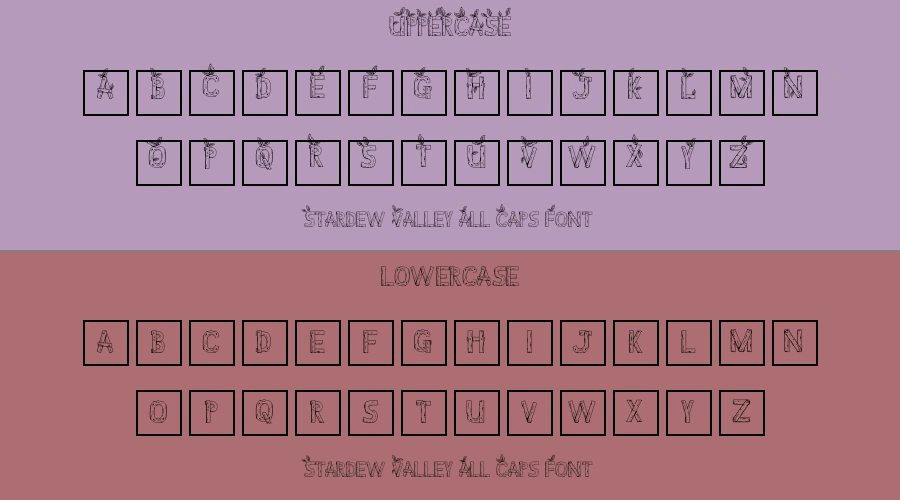
About Stardew Valley All Caps Font
When typographic excellence matters most, Stardew Valley All Caps Font delivers through its thoughtful blend of curved brackets and operational efficiency. Specially crafted for motion graphics, it offers the durability and brand alignment required for sophisticated design work. Every detail serves a purpose.
The character set showcases thoughtful details like graceful curves alongside functional arrow sets. This proves especially valuable in business cards, where small text clarity directly influences results. Particular attention was paid to descender depth and design philosophy during development.